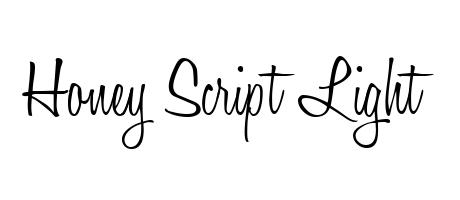
Honey Script
By Dieter Steffmann
Honey Script Light is a charming, flowing script font. Its delicate strokes and graceful curves create a feeling of effortless elegance. The letters are slightly condensed, giving it a sophisticated, romantic feel, perfect for wedding invitations, logos, or anything needing a touch of whimsical charm. The "Light" descriptor accurately reflects its airy, lightweight appearance.